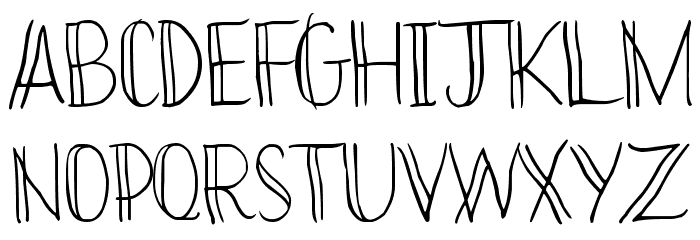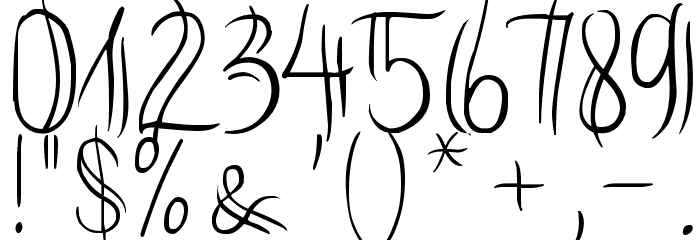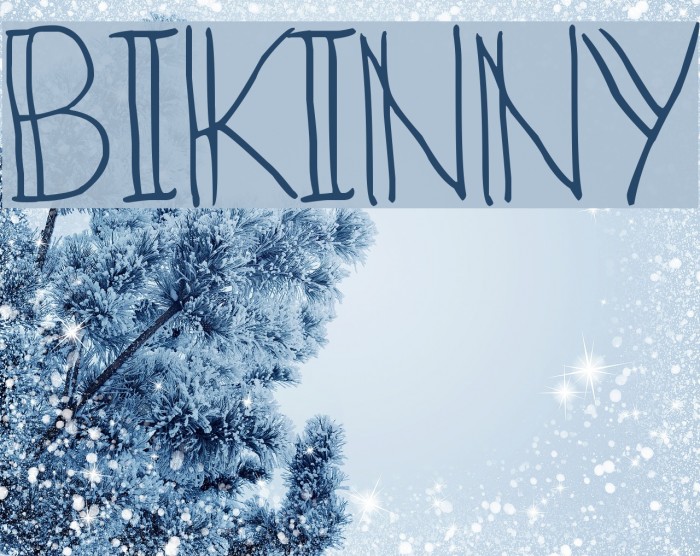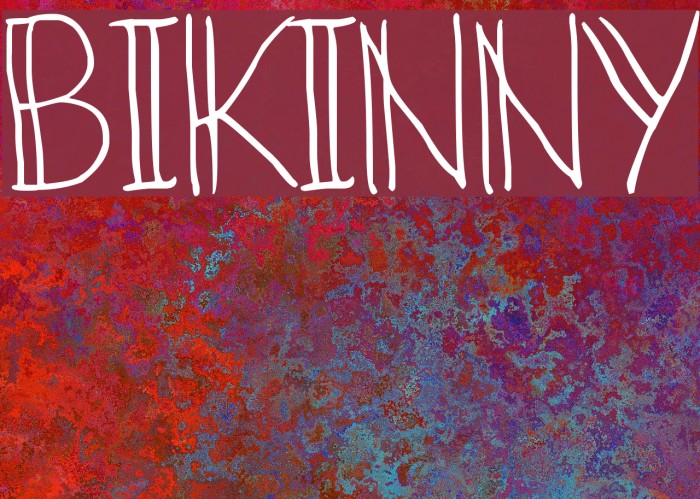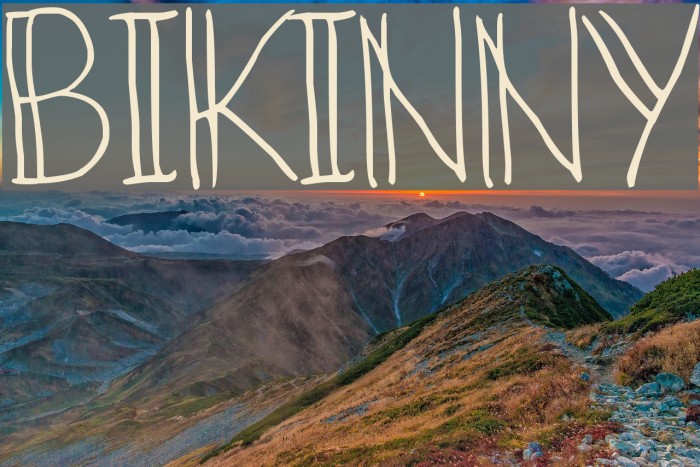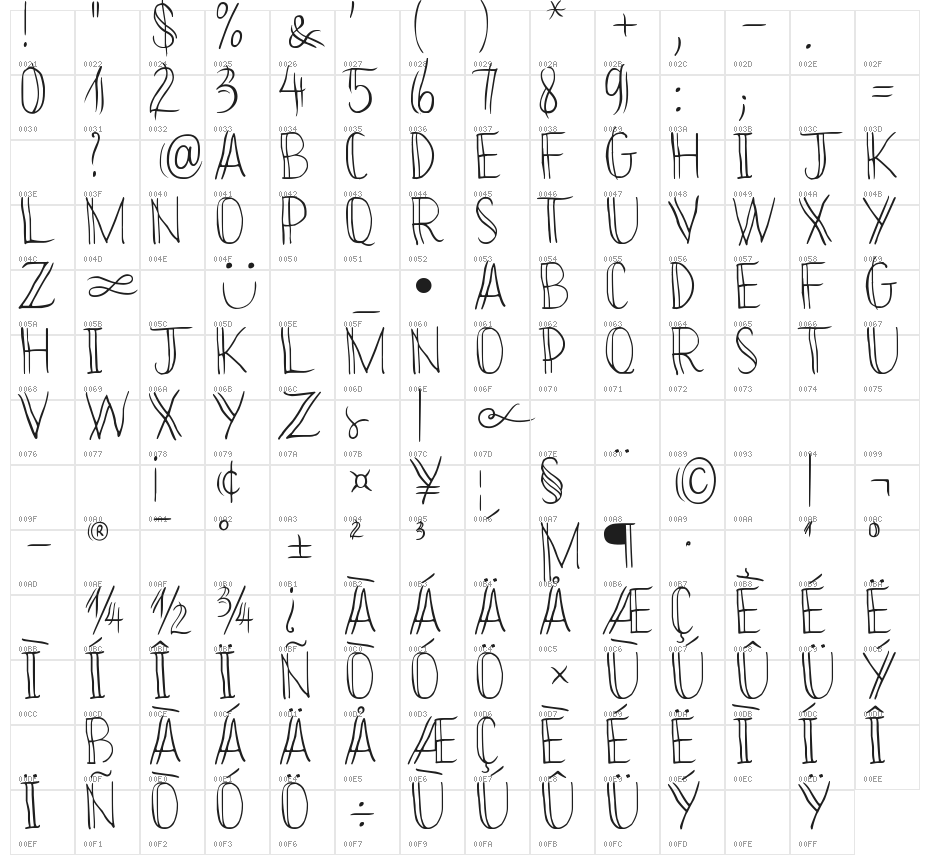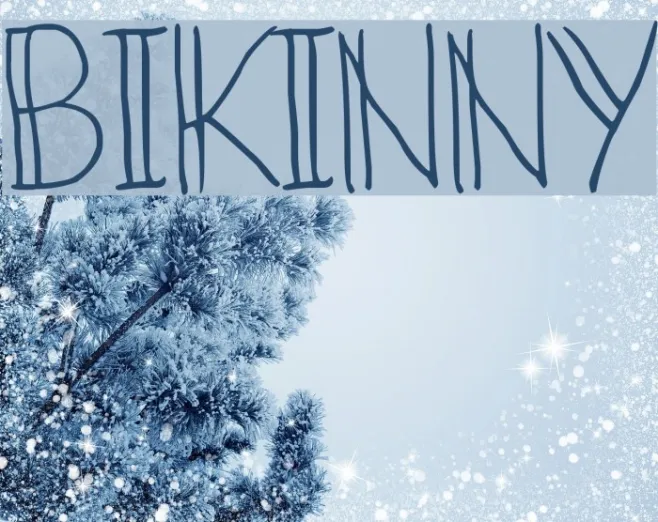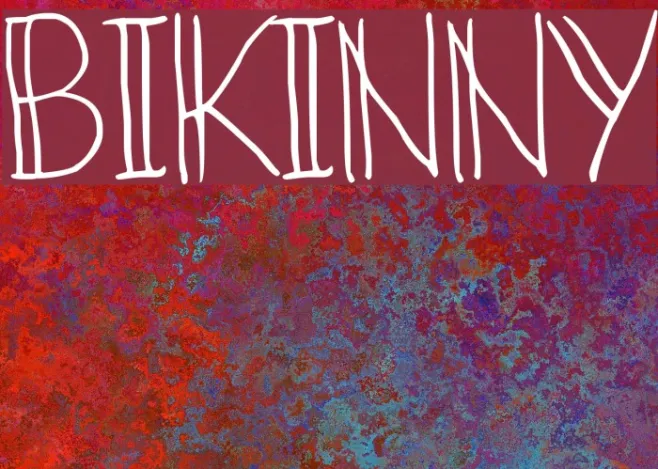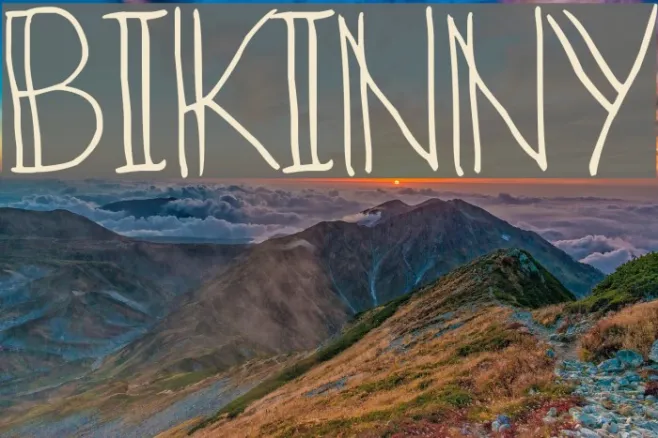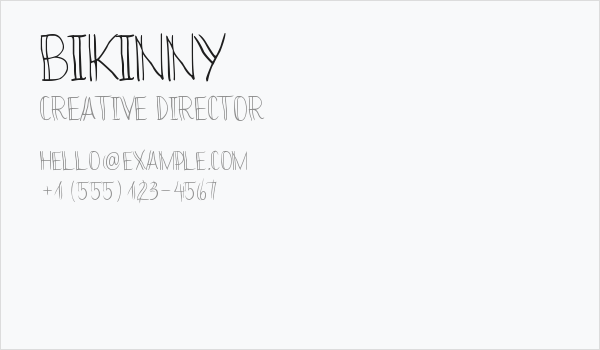
Bikinny Font
This font features a playful and whimsical handwritten style, characterized by tall, narrow letters with a slightly irregular baseline. The strokes are thin and consistent, giving it a light and airy feel. The uppercase and lowercase letters maintain a cohesive look, with elongated forms and subtle curves that add to its charm. Numbers and special characters are designed to match the overall aesthetic, making them suitable for creative and informal applications. The font's unique personality makes it stand out, perfect for projects that require a touch of individuality and creativity.
A playful, handwritten font with tall, narrow letters and a whimsical style.
- Proposed Projects: Ideal for greeting cards, children's books, playful branding, and creative posters.
- Weight: Light
- Overall Style: Whimsical
- Use Case: Logos, Headlines, Creative projects